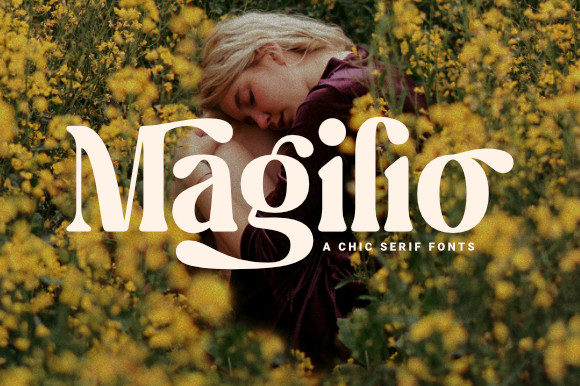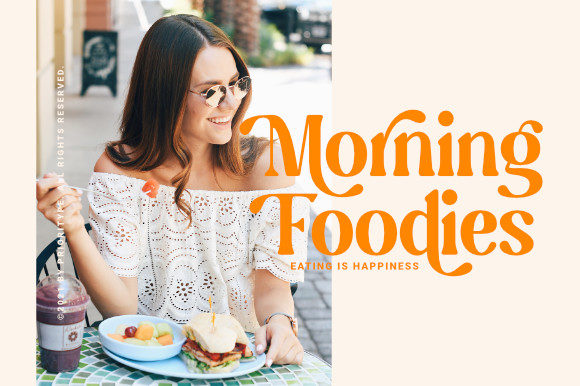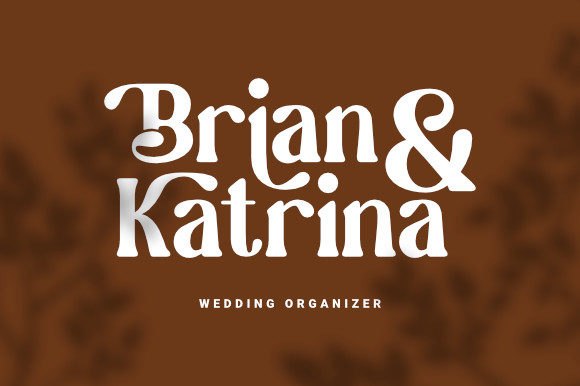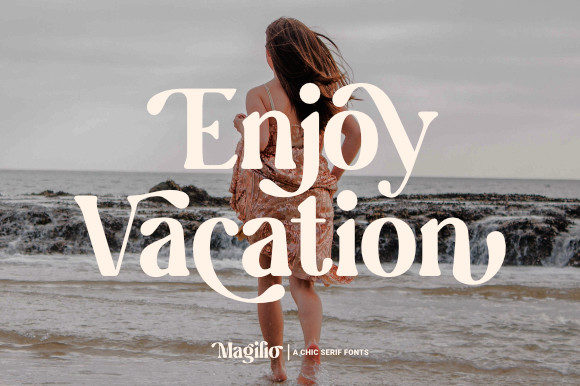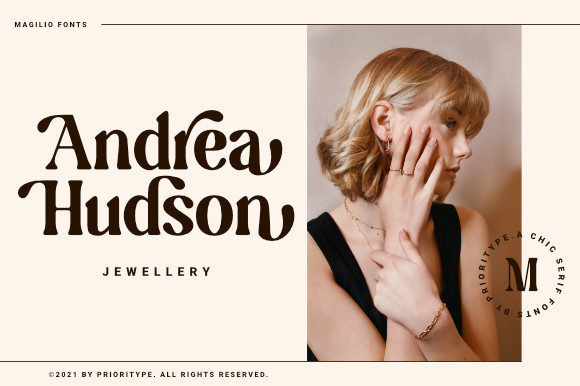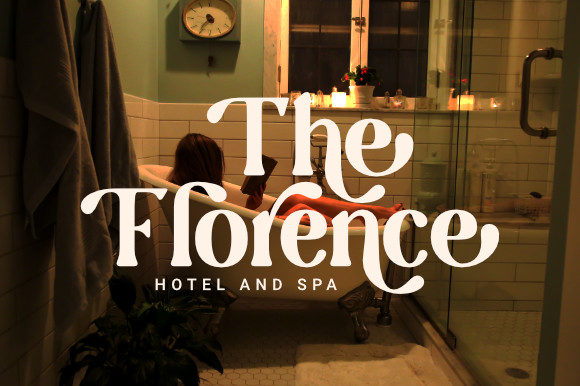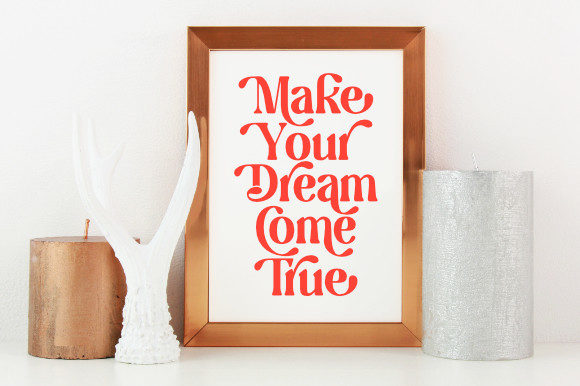
Magilio Font
Magilio is a chic, elegant and cool serif font. This font is neatly crafted and highly detailed. Magilio is PUA encoded which means you can access all of the beautiful glyphs and swashes with ease!